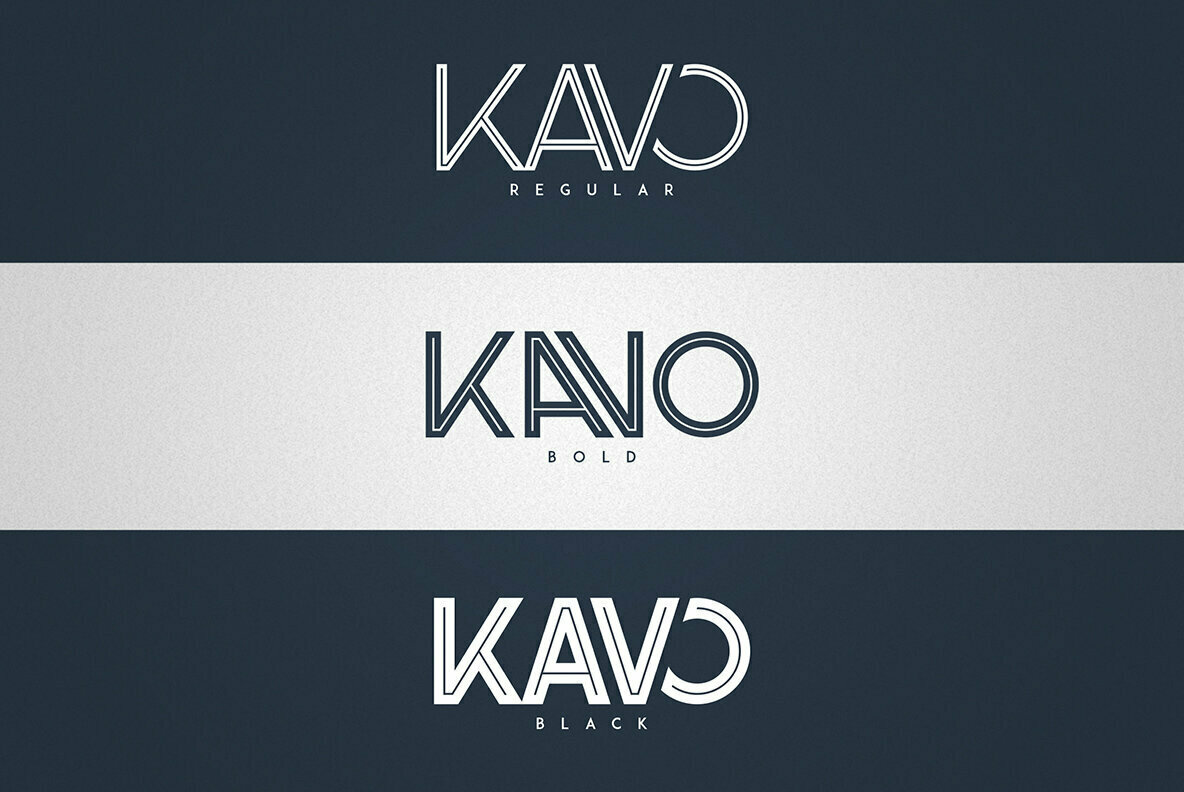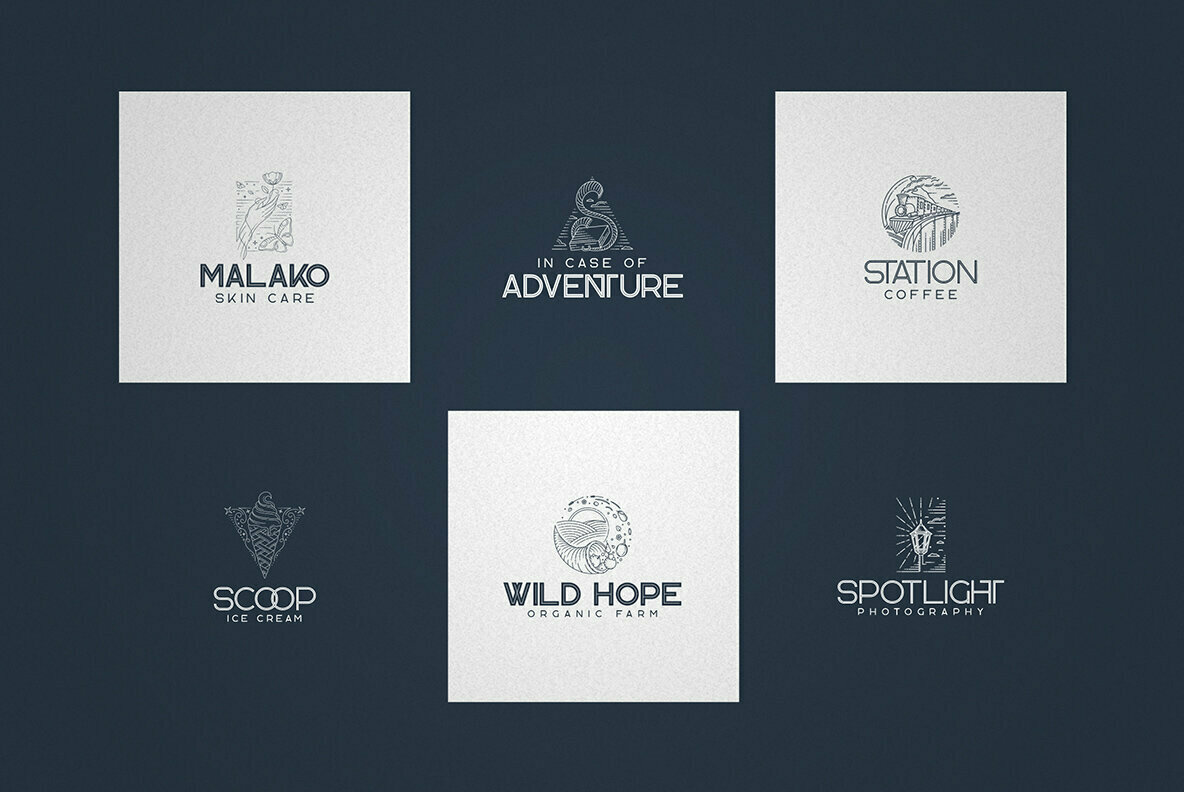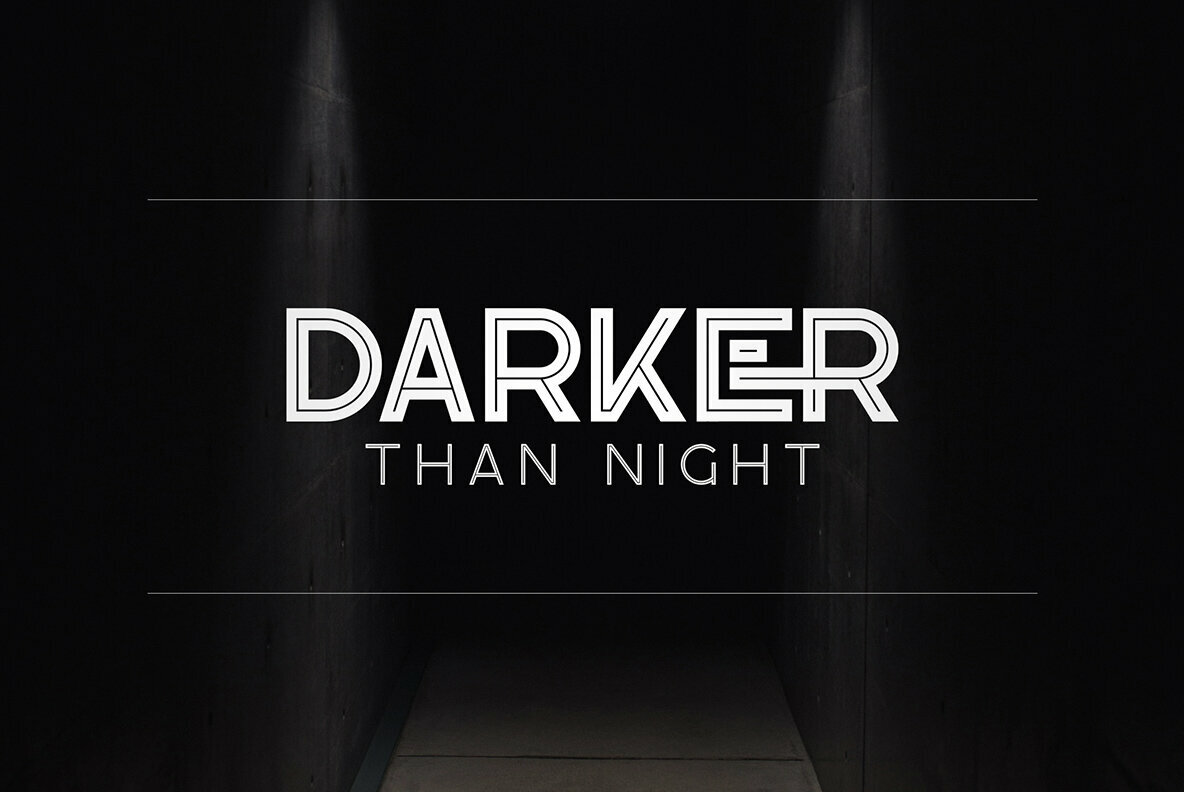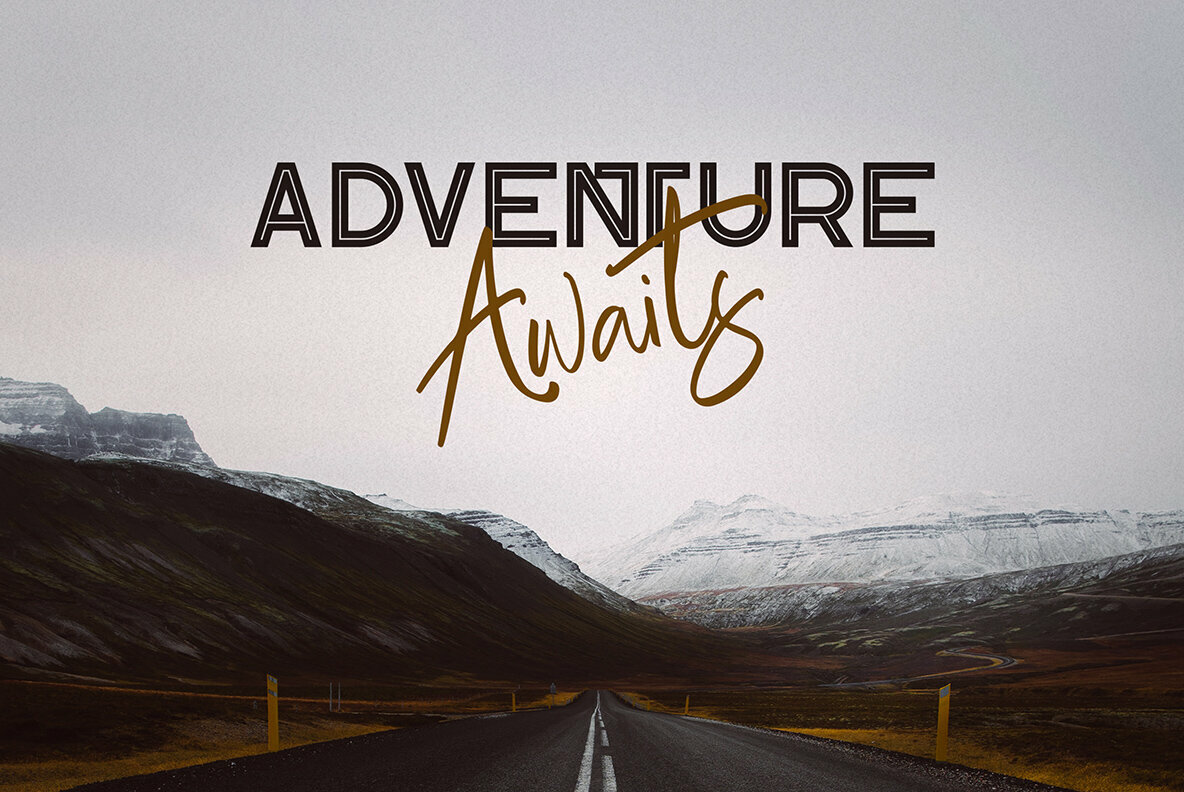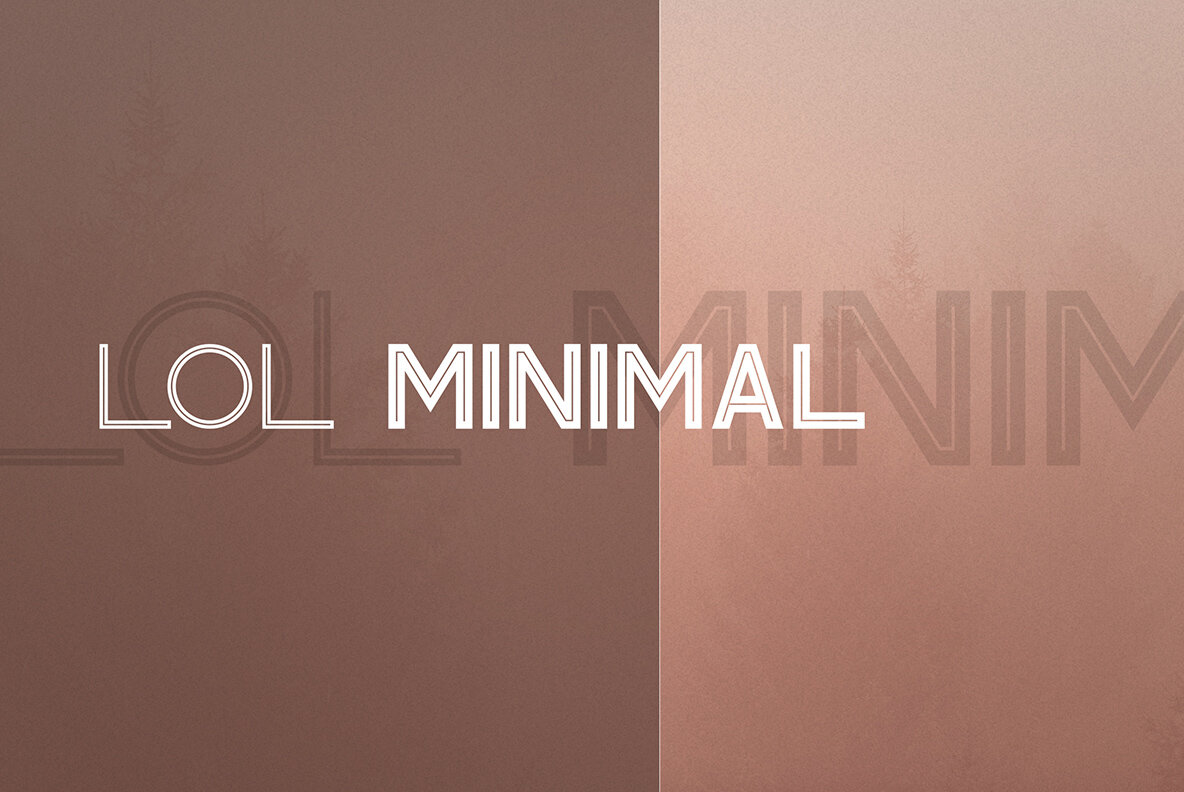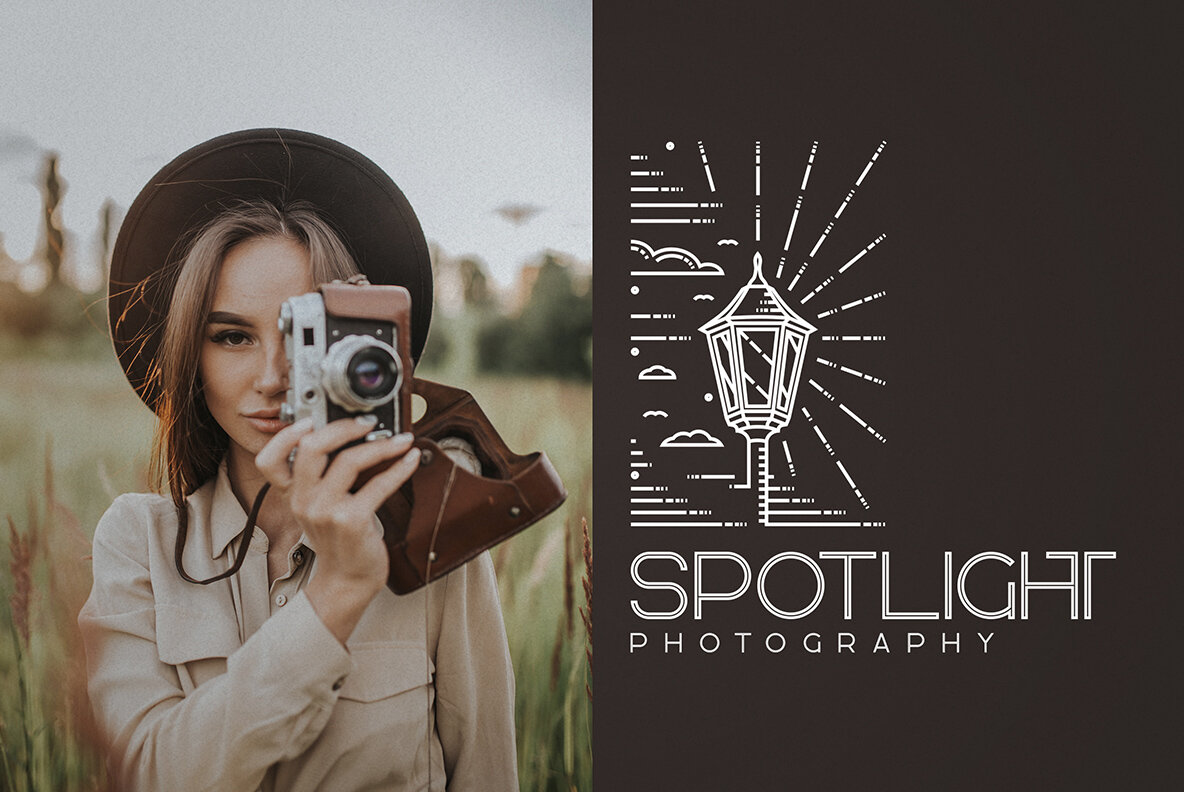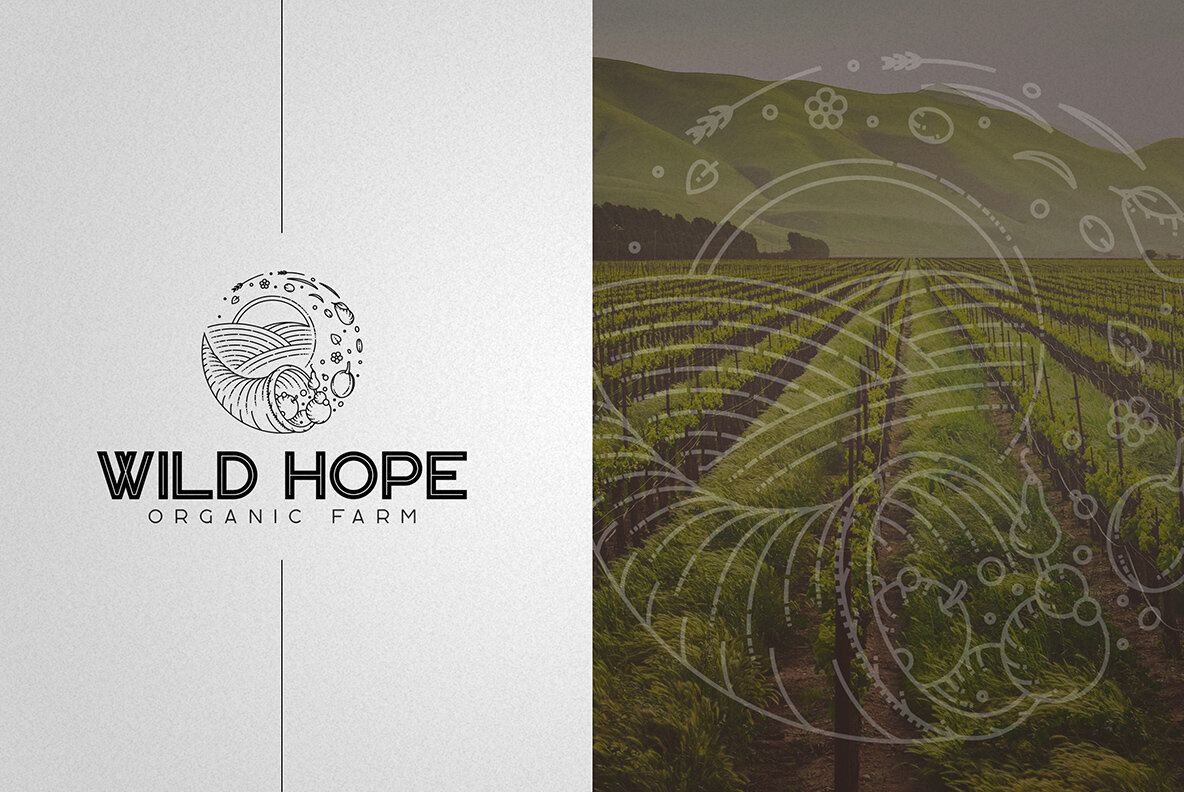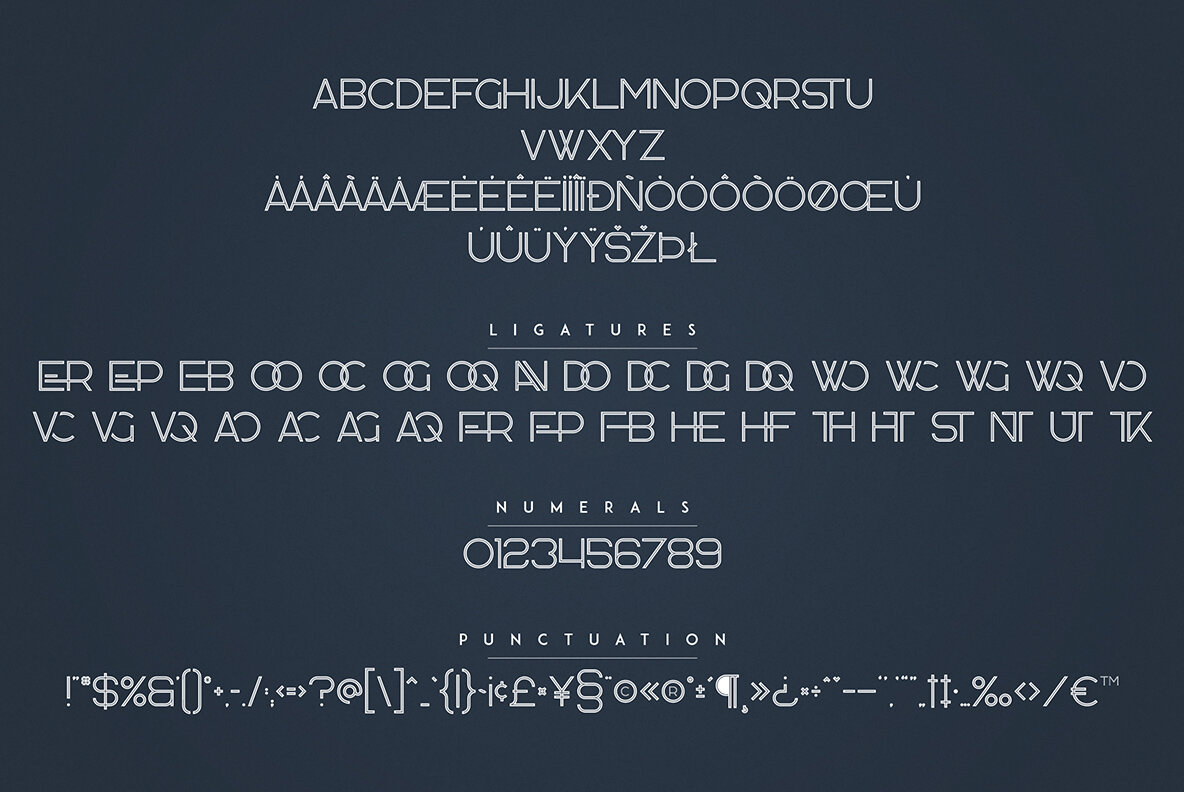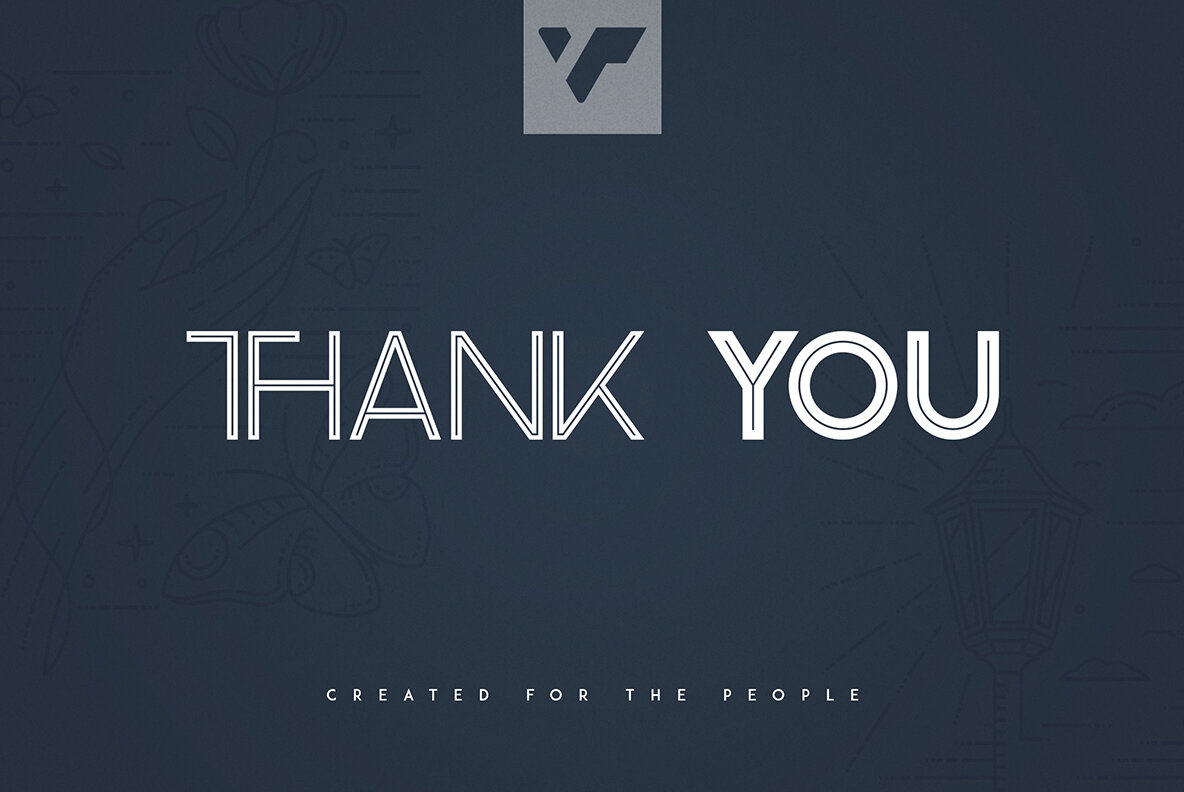
Kavo Inline Font
Kavo Inline Fonts and Logo Templates (3 fonts)
Kavo Inline
Kavo Bold Inline
Kavo Black Inline
The Kavo Inline typeface offers a modern aesthetic with its inline design, available in three distinct weights. Its versatility makes it a superb choice for both large and small typography applications, ensuring clarity and style across various design projects. With its sleek design, Kavo Inline is perfect for branding, homeware designs, and product packaging. This typeface adds flair, whether used in magazine headers or as a text overlay on background images. While templates and designs are included, please note that mock-ups and backgrounds shown are not part of the package.Kavo Inline: A Distinctive Typeface for Elegant Branding